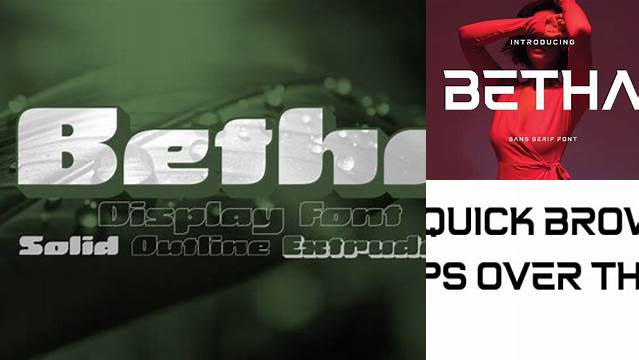
Betha Font: Free Download & Creative Logo Design Tips
Hey everyone! Ever stumbled upon a font that just screams potential? Well, that's Betha for ya! This font is a total game-changer when it comes to crafting a killer brand logo. And the best part? You can get a free download! In this article, we're diving deep into everything Betha, from where to snag it to how to use it like a pro. We'll also explore some killer logo design tips and tricks to help you create a brand identity that's unforgettable. Get ready to unleash your inner designer, because we're about to get creative!
1. Betha Font: Your Gateway to Creative Branding
So, what's the big deal about Betha? Well, for starters, it's not your average, run-of-the-mill font. Betha exudes a unique blend of modern and classic vibes, making it incredibly versatile for a wide range of branding projects. Whether you're designing a logo for a tech startup, a fashion brand, or a local coffee shop, Betha has the potential to make your brand stand out from the crowd. The font's clean lines and elegant curves give it a sophisticated feel, while its inherent readability ensures that your message is always clear and concise. But the true beauty of Betha lies in its adaptability. It can be used in a variety of different styles, from minimalist and understated to bold and impactful. This allows you to tailor the font to the specific needs of your brand and create a logo that perfectly captures your vision. Plus, the fact that it's available for free download makes it even more appealing, especially for small businesses and startups working with limited budgets. With Betha, you don't have to break the bank to create a professional and eye-catching logo. It's all about maximizing your creativity and making the most of the resources available to you. This opens up opportunities for you to experiment with different design elements, color palettes, and layouts without worrying about the financial constraints that often hinder creative endeavors. So, if you're looking for a font that can take your brand to the next level, Betha is definitely worth checking out.
3. Betha Font in Logo Design: Best Practices
Okay, you've got Betha. Now, how do you actually use it in a logo? Let's talk best practices, guys. First and foremost, consider the personality of your brand. Does Betha's style align with it? Is it modern, playful, serious? Make sure the font complements your brand's essence. When incorporating Betha into your logo design, start by experimenting with different font weights and styles. Betha typically comes in various weights, from light to bold, and some styles might include italics or condensed versions. Varying the font weight can add visual interest and hierarchy to your logo. For example, you might use a bold weight for the brand name and a lighter weight for the tagline. Next, pay close attention to kerning and tracking. Kerning refers to the space between individual letters, while tracking refers to the overall spacing of the letters in a word or phrase. Adjusting these settings can significantly impact the readability and visual appeal of your logo. Too much or too little spacing can make your logo look cluttered or disjointed. A well-kerned and tracked logo is easy to read and looks professional. Another key consideration is the context of your logo. Where will it be used? On websites, business cards, social media, or product packaging? Ensure that your logo is legible and visually appealing in all these contexts. Test your logo in different sizes and on different backgrounds to make sure it retains its impact. Also, think about the color palette. Choose colors that complement Betha and reflect your brand's personality. Consider the psychology of color and how different colors can evoke different emotions. A well-chosen color palette can make your logo even more memorable and effective. Finally, don't be afraid to experiment. Try different layouts, combinations of text and imagery, and variations of your logo. The design process is all about exploration and iteration. The goal is to create a logo that is both visually appealing and communicates your brand's message effectively.
4. Betha Font Alternatives: Exploring Similar Styles
5. Combining Betha Font with Other Design Elements
So, Betha is your typeface of choice, but a logo is more than just words, right? Let’s explore how to integrate Betha with other design elements to create a knockout logo. Think about your brand's visual language. If you're a tech company, you might pair Betha with a clean, geometric icon. This creates a modern and sophisticated look. Use this to represent your brand's message effectively. Now, if you are an environmental organization, you might combine Betha with an illustration of a leaf or a tree to show nature. A good image can help enhance brand recognition. Consider using a simple, yet memorable symbol. Make sure the icon is easily recognizable. For example, if your company sells coffee, you might incorporate a coffee bean or a steaming cup of coffee. You should ensure that your icon is both meaningful and aligned with your brand identity. Also, try playing with different layouts. Experiment with placing the text above, below, or to the side of the icon. The layout can significantly impact the overall look and feel of your logo. Sometimes, a simple arrangement is the most effective, while other times, a more complex design might be necessary to convey your brand's message. Also, remember the importance of color. Choose colors that complement both Betha and your icon. The color palette can enhance the visual appeal of your logo. Ensure that the color combination evokes the right emotions. Use the color to convey the message effectively. And hey, don't be afraid to add some subtle visual effects, such as a drop shadow or a slight gradient. These effects can add depth and dimension to your logo. But be careful not to overdo it. The goal is to enhance, not distract. Keep the focus on the brand name and icon.
6. The Psychology of Font Choice: How Betha Impacts Perception
Fonts aren't just about aesthetics; they have a psychological impact. The font you choose communicates a lot about your brand. Betha, with its clean lines and modern style, often conveys trustworthiness, professionalism, and simplicity. When people see Betha in a logo, they subconsciously perceive the brand as reliable and modern. Using Betha can create a strong and positive first impression. Make sure it aligns with your core values. Different fonts evoke different emotions. The same logo could send a completely different message depending on the font. A serif font might suggest tradition and authority, while a script font might suggest creativity and playfulness. Choose a font that reflects the characteristics of your brand. Think about your target audience. What are their values and preferences? Betha is a good fit for many audiences, especially those who appreciate a modern and clean design. If you're targeting a younger audience, you might consider a more playful font. If you're targeting a professional audience, you might stick with Betha. Also, consider the context in which your logo will be used. A font that works well on a website might not work as well on a business card, and vice versa. In general, Betha works well in both digital and print environments, making it a versatile choice for a wide range of applications. By choosing the right font, you can effectively communicate your brand's personality and values. A well-chosen font can help create a positive first impression and build trust with your target audience.
7. Betha Font for Web and Digital Branding
Betha is not just for print; it's amazing for web and digital branding too! Because it's highly readable, Betha is great for website headers, social media graphics, and digital ads. Ensure the font is easily readable on screens of all sizes. Websites need fonts that are easily read. When using Betha on the web, make sure it's optimized for different screen resolutions and devices. It should look crisp and clear on desktops, tablets, and smartphones. Test your logo in different sizes and on different backgrounds to make sure it retains its impact. Also, consider the color contrast. Ensure that the font color has sufficient contrast with the background color. Dark text on a light background or light text on a dark background usually works best. Avoid using colors that are difficult to read. In terms of website design, Betha can be used for headlines, subheadings, and even body text. It will give your website a modern and professional look. Combine Betha with other design elements to create a cohesive and engaging online presence. On social media, use Betha for your profile picture, cover photos, and posts. Betha will help create a consistent brand identity across all your social media platforms. Also, consider using different font weights and styles to add visual interest to your social media graphics. And when it comes to digital ads, Betha can be used to create compelling and eye-catching visuals. Test different versions of your ad to see which ones are the most effective. The font is versatile and easy to read. Also, use the font in different marketing materials.